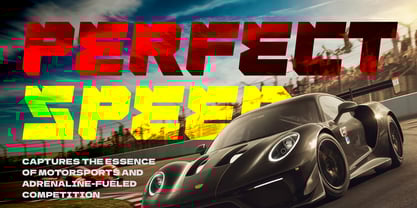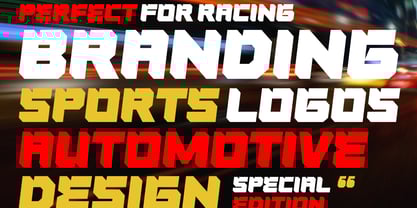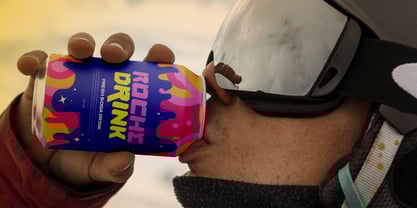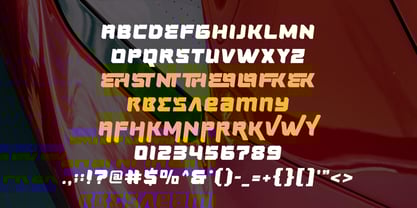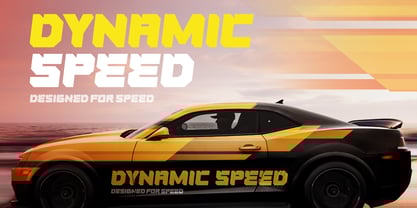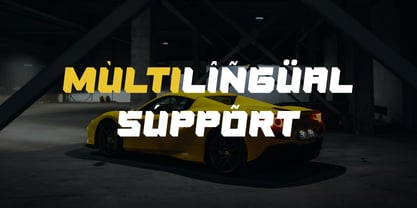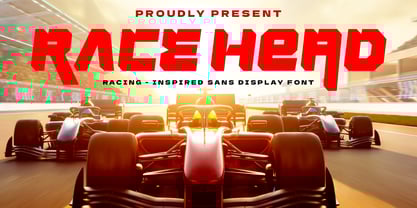
Race Head
by Salamahtype
The Race Head Font Family was designed by Aswangga Sadike and published by Salamahtype. Race Head contains 2 styles and family package options.
Race Head is a powerful sports race font with a bold and dynamic style, designed to bring energy and speed to your designs. With its strong letterforms and striking alternates, this font ensures your logos, headlines, and branding stand out with confidence.
Perfect for sports branding, racing events, gaming titles, posters, and team logos, Race Head includes ligatures and alternates, giving you creative flexibility to customize your typography. Its simplicity makes it easy to use, while its bold presence makes a lasting impact.
Race Head includes:
– Uppercase and lowercase (Allcaps)
– Symbols and punctuation
– Ligatures
– Alternates
– Multilingual support
Designers: Aswangga Sadike